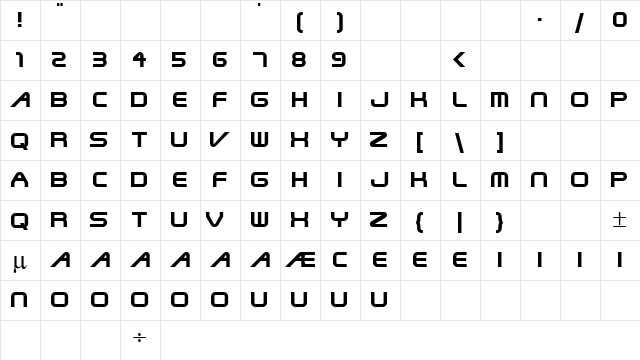
Steel Regular
Design Context for Steel Typeface
Steel takes a measured approach to typography — its balanced proportions and neutral character make it a reliable workhorse for both digital and print work.
Pro Tip: Pair Steel with a font of contrasting weight or personality to build a more expressive typographic hierarchy.